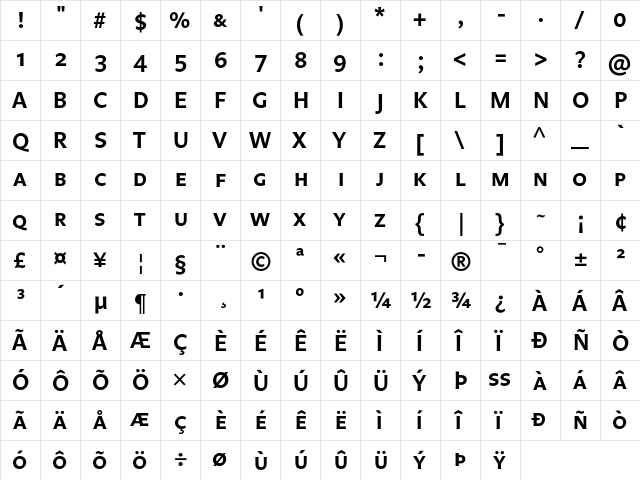
Legato SC Semi Bold Font Preview
Legato SC Semi Bold
Legato SC Semi Bold Font Details
| Style | SC Semi Bold |
Design Context for Legato Typeface
Legato is a composed and adaptable typeface that performs quietly and consistently across a wide range of design contexts. Its bold stroke weight gives it real presence on the page.